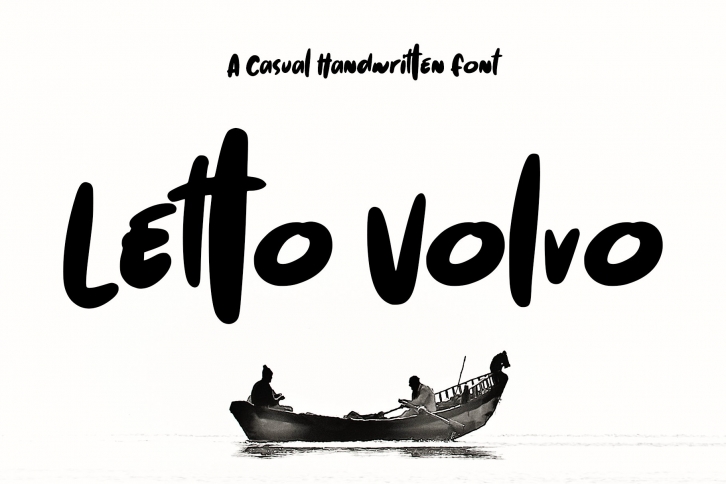
Letto Volvo is a gorgeous font that was realeased on April 27, 2021. The font can be used in many style contexts and design environments. Perfect for invitations, magazines, websites, logos, and more! It was designed by aldedesign and the file size is 18.82 MB. Thanks for checking out this font!